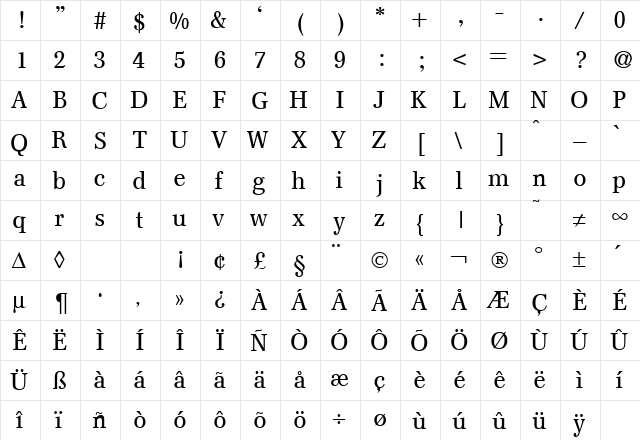
FranklinSerif DB Regular
Design Context for FranklinSerif DB Typeface
FranklinSerif DB brings classic typographic sensibility to the table — its serifs and measured letterforms reflect centuries of print heritage.
Pro Tip: Set FranklinSerif DB with slightly loose tracking in headlines to let each letterform's detail read clearly at display sizes.